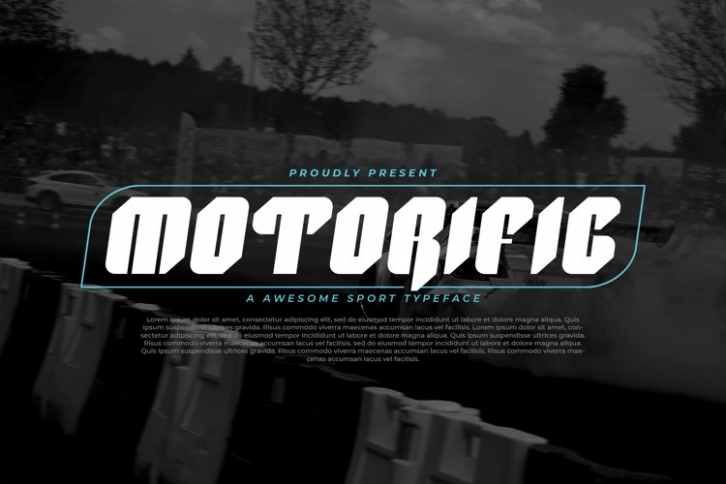
Motorific is a trendy and unique font with an authentic style. It was designed by plusstore and it's a great choice for creative people who need such a font. It was released on December 20, 2021 and the file size is 9.17 MB. Motorific will add an organic vibe to any design idea!